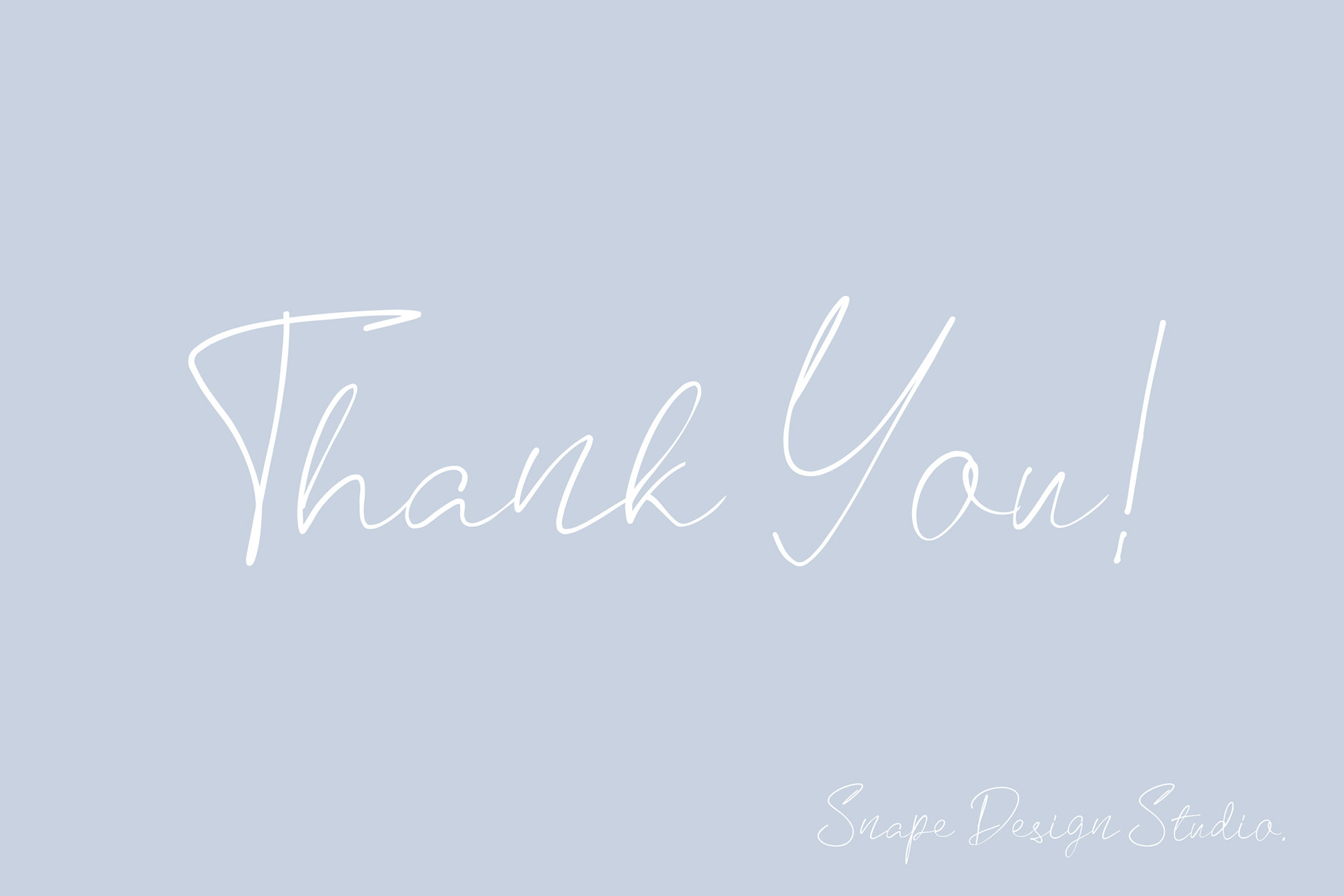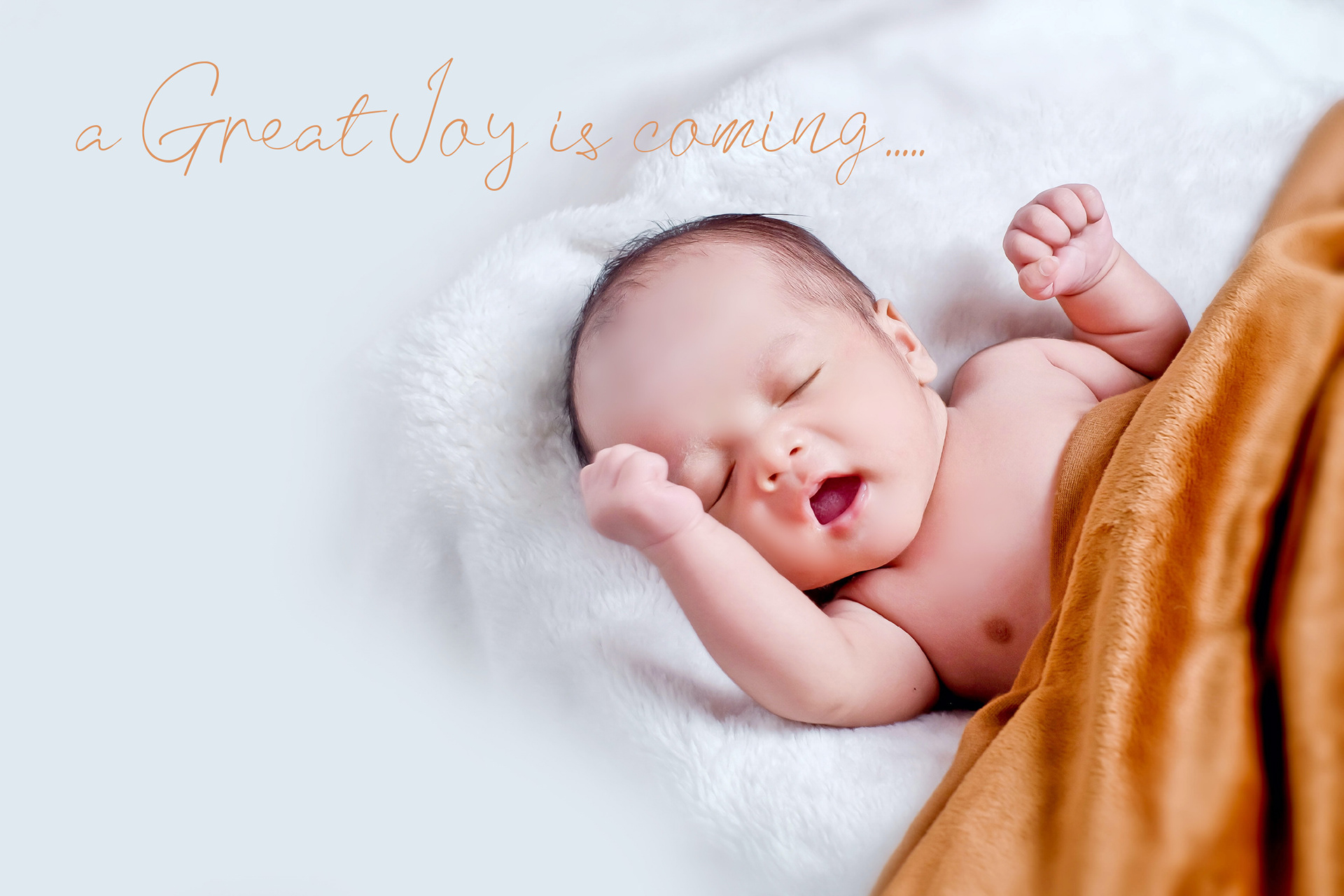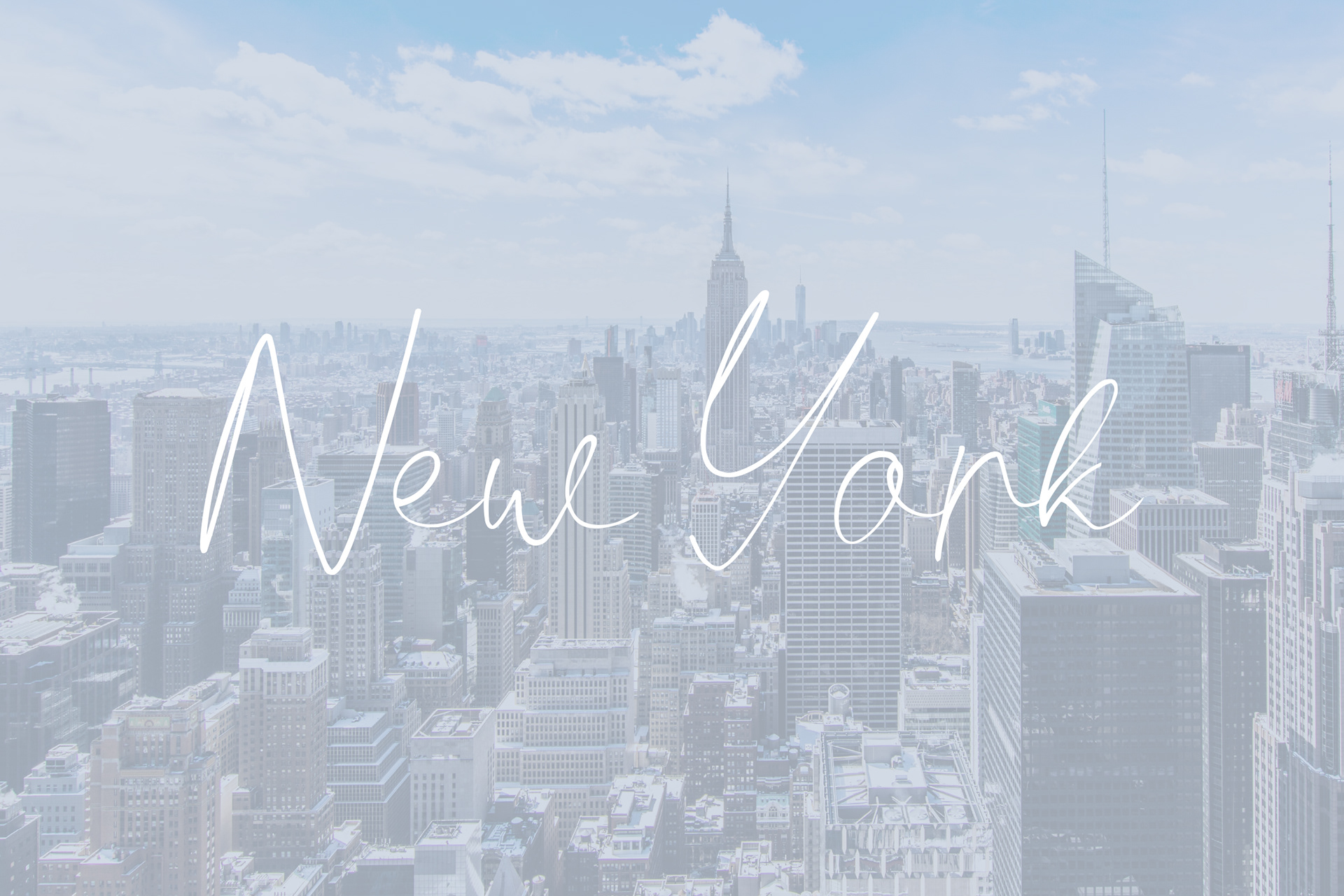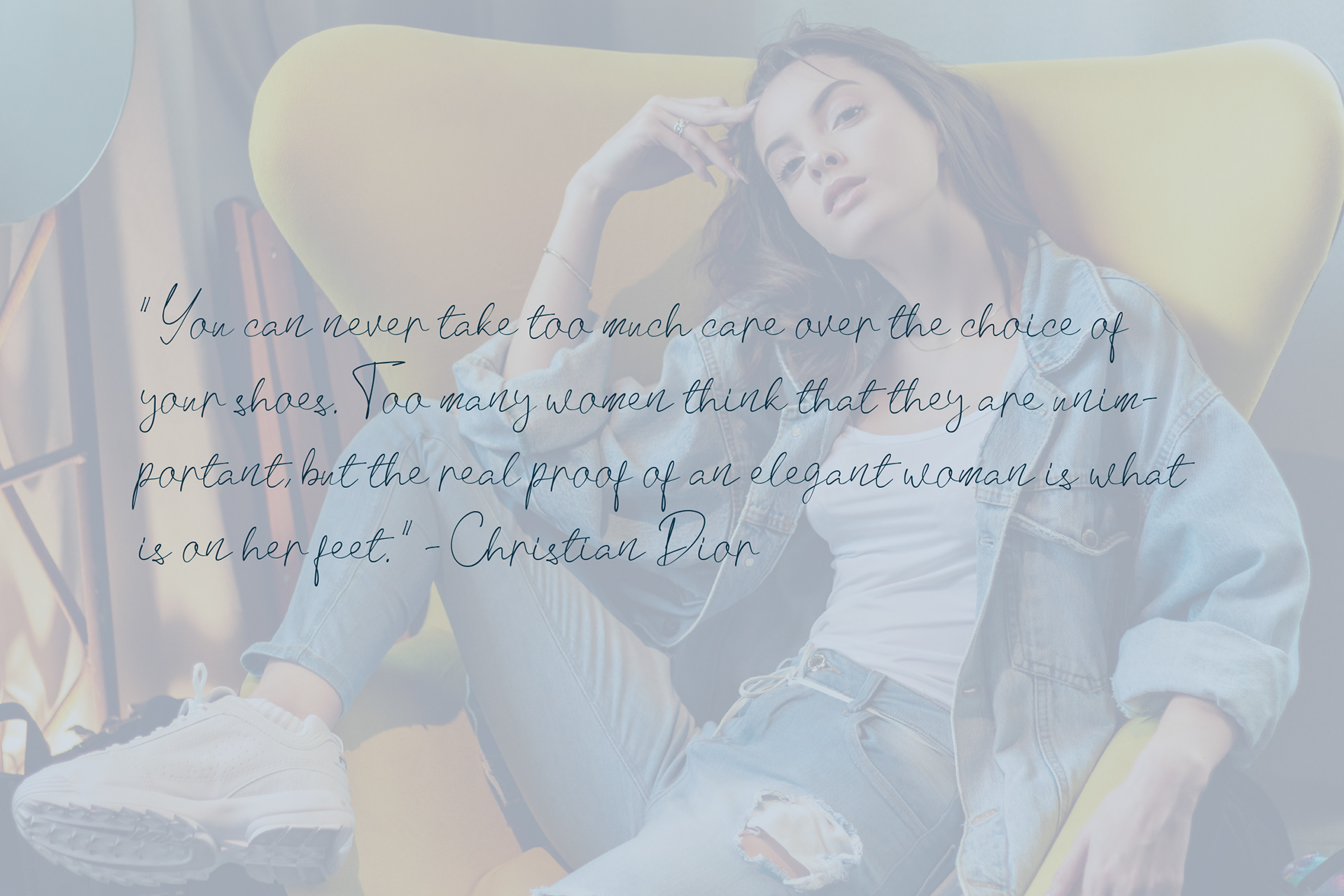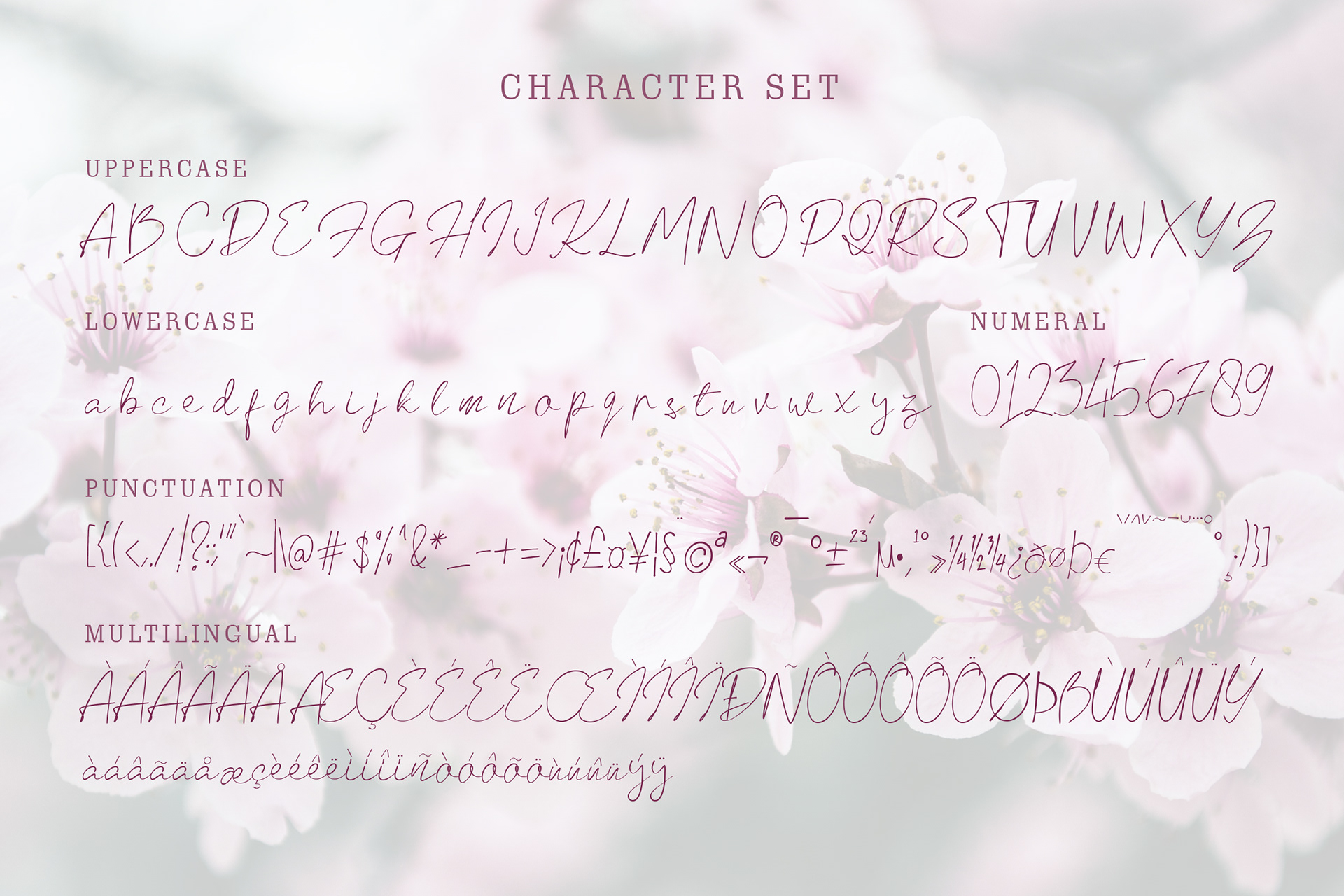
Kamalah is a thin, whimsical, and flowing script font. Featuring characters that dance along the baseline, this font will add a luxury spark to any design project that you wish to create! Suitable for movie, documenter, film, logo, poster, book cover, headlines, title and many more projects. Add this font to your creative ideas and notice how it will make them stand out!
Kamalah - Handritten Script Font design by Ario Sabrang Damar publish under Snape Design Studio